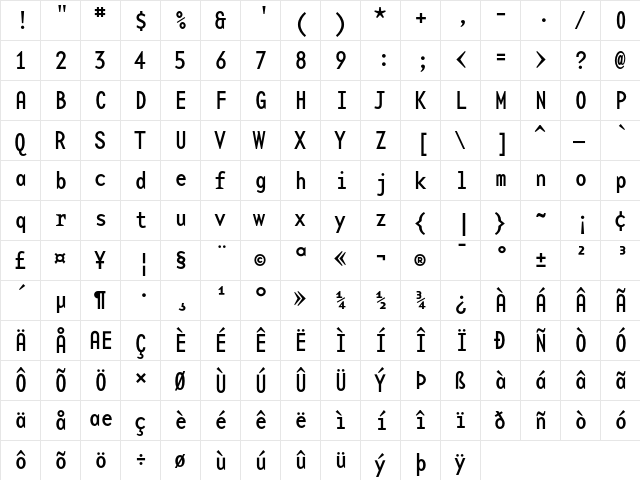
BaseMonoReg-Narrow Roman Font Preview
BaseMonoReg-Narrow Roman
BaseMonoReg-Narrow Roman Font Details
Design Context for BaseMonoReg-Narrow Typeface
BaseMonoReg-Narrow uses fixed-width spacing throughout, giving it the structured, systematic character associated with coding environments and technical documentation.